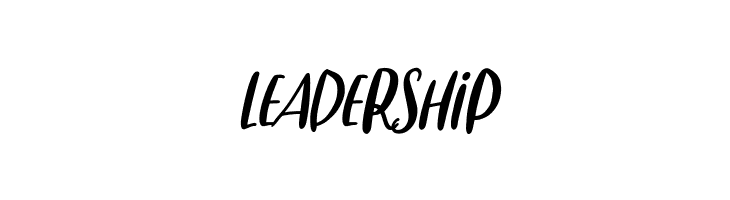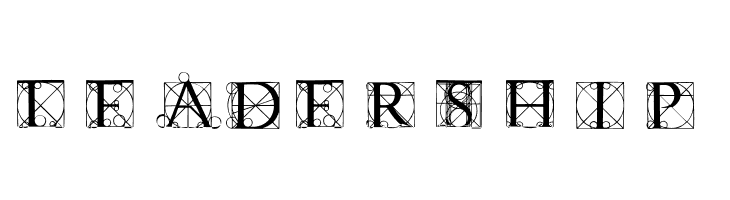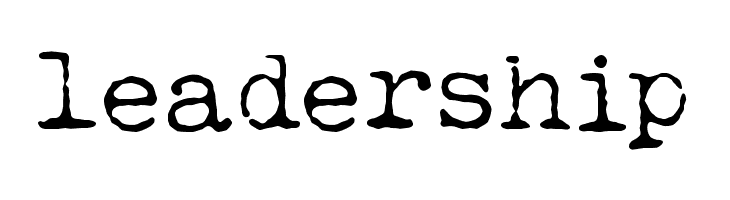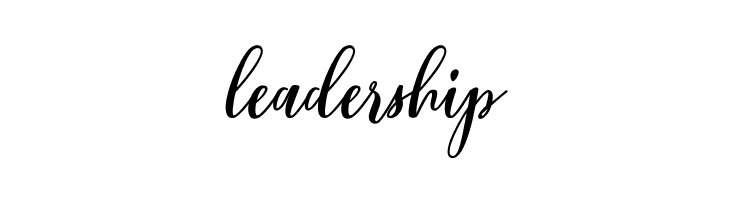
A decorative font with anchor-like serifs and a nautical theme.
A decorative font with stitching-like embellishments, offering a handcrafted and artistic feel.
A bold, decorative font with a vintage shadow effect, ideal for impactful designs.
A whimsical font with letters encased in heart shapes, perfect for romantic or playful designs.
A playful, heart-themed decorative font with bold outlines.
An elegant, cursive font with a graceful, handwritten style.
A playful and whimsical handwritten font with fluid, flowing letterforms.
An elegant, cursive font with flowing, handwritten style.
A dynamic and flowing script font with smooth, cursive strokes.
A geometric, futuristic font with angular shapes and a modern aesthetic.
A bold, geometric font with a modern, tech-inspired design.
A bold, 3D geometric font with a futuristic style.
A bold, expanded, and geometric font with a futuristic style.
A bold, italicized font with a futuristic and angular design.
A bold, italicized font with a 3D effect and angular, futuristic design.
A geometric, futuristic font with sharp angles and a condensed style.
A futuristic, angular, and condensed italic font with a bold, modern style.
A geometric, futuristic font with sharp angles and clean lines.
A futuristic, expanded, and italicized font with sharp, geometric lines.
A futuristic, angular font with a slanted, dynamic style.
A futuristic, angular font with a dynamic, italicized style.
A futuristic, geometric outline font with angular lines and a modern aesthetic.
A futuristic, outlined, and italicized font with geometric precision.
A modern italic font with clean lines and a dynamic slant.
A sleek, modern font with clean lines and a minimalist aesthetic.
A sleek, light, and italicized font with a modern and elegant style.
A geometric, decorative font inspired by classical proportions and Renaissance art.
A classic serif font with high contrast and elegant, angular serifs.
A bold, cursive script font with a handwritten, elegant style.
A playful, hand-drawn sans-serif font with a modern and friendly appearance.
A lively, cursive script font with bold, interconnected strokes.
A vintage typewriter-style font with a monospaced, distressed appearance.